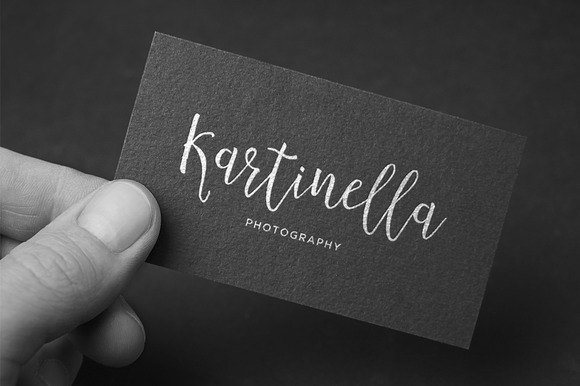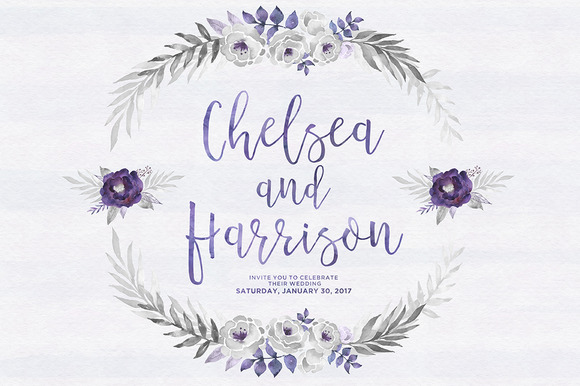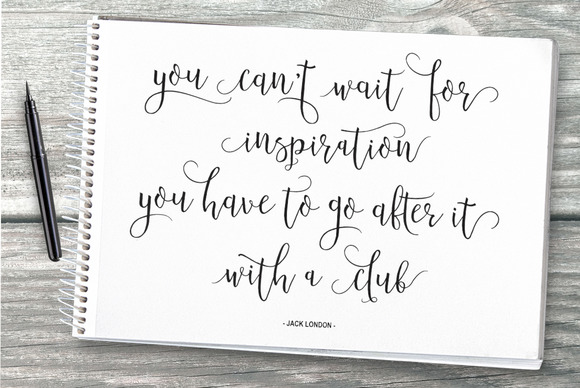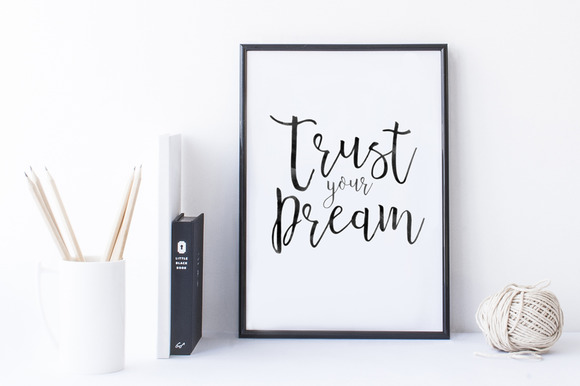
Introblues Font
About Introblues Font
Introblues Script is a modern brush font. It has an organic, dynamic, and energetic style. Can be used for various purposes such as headings, logos, invitations, t-shirt designs, greeting cards, posters, labels, book covers, brochures, and much more!